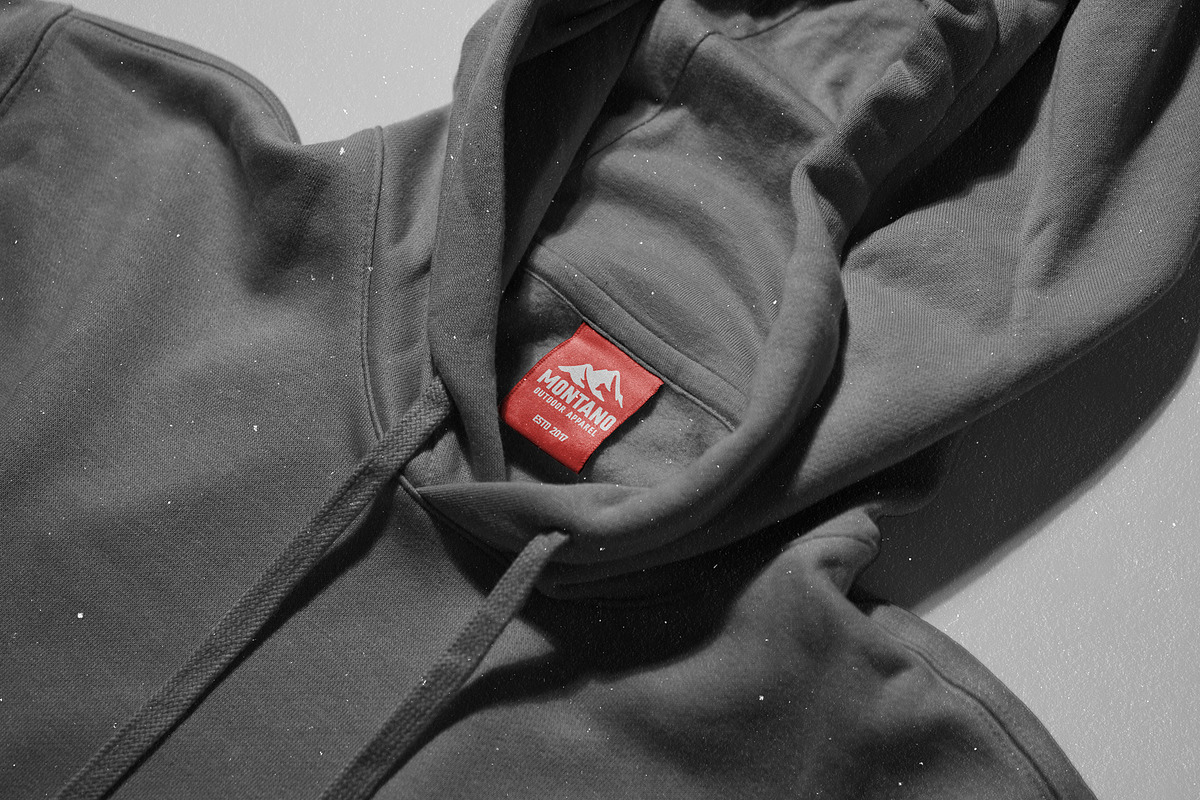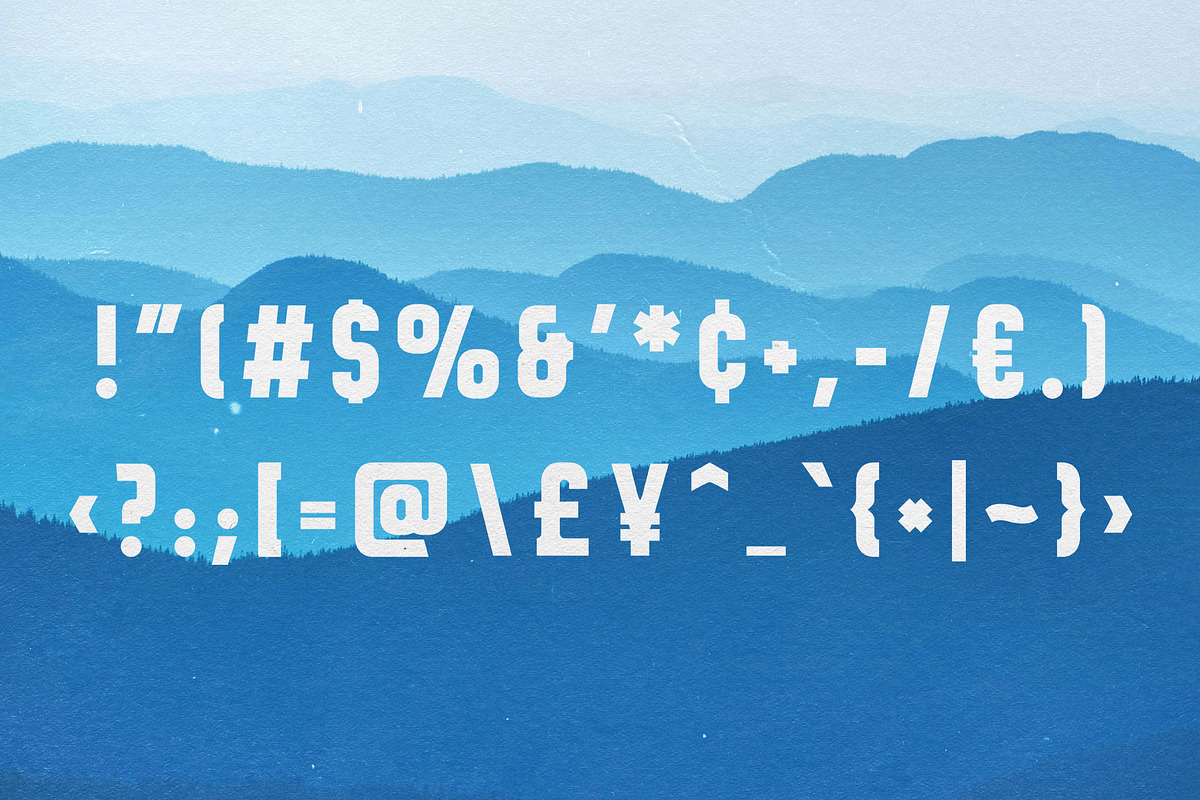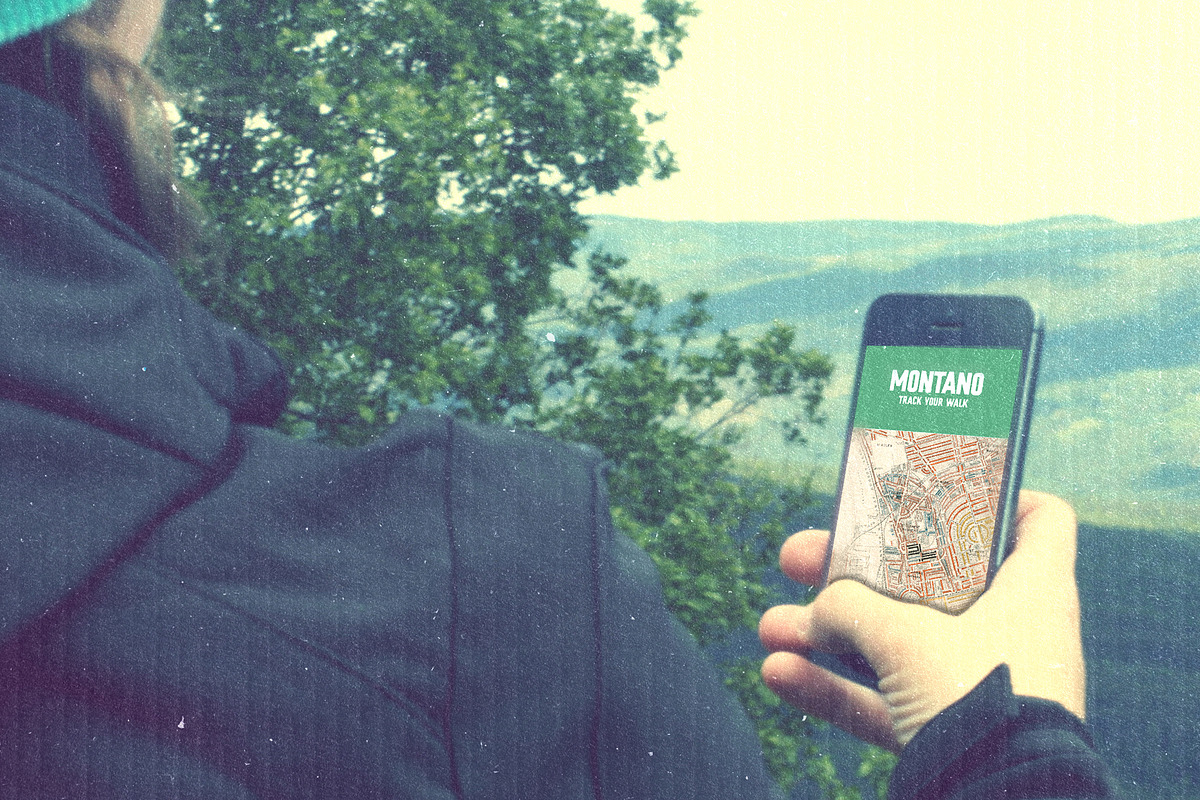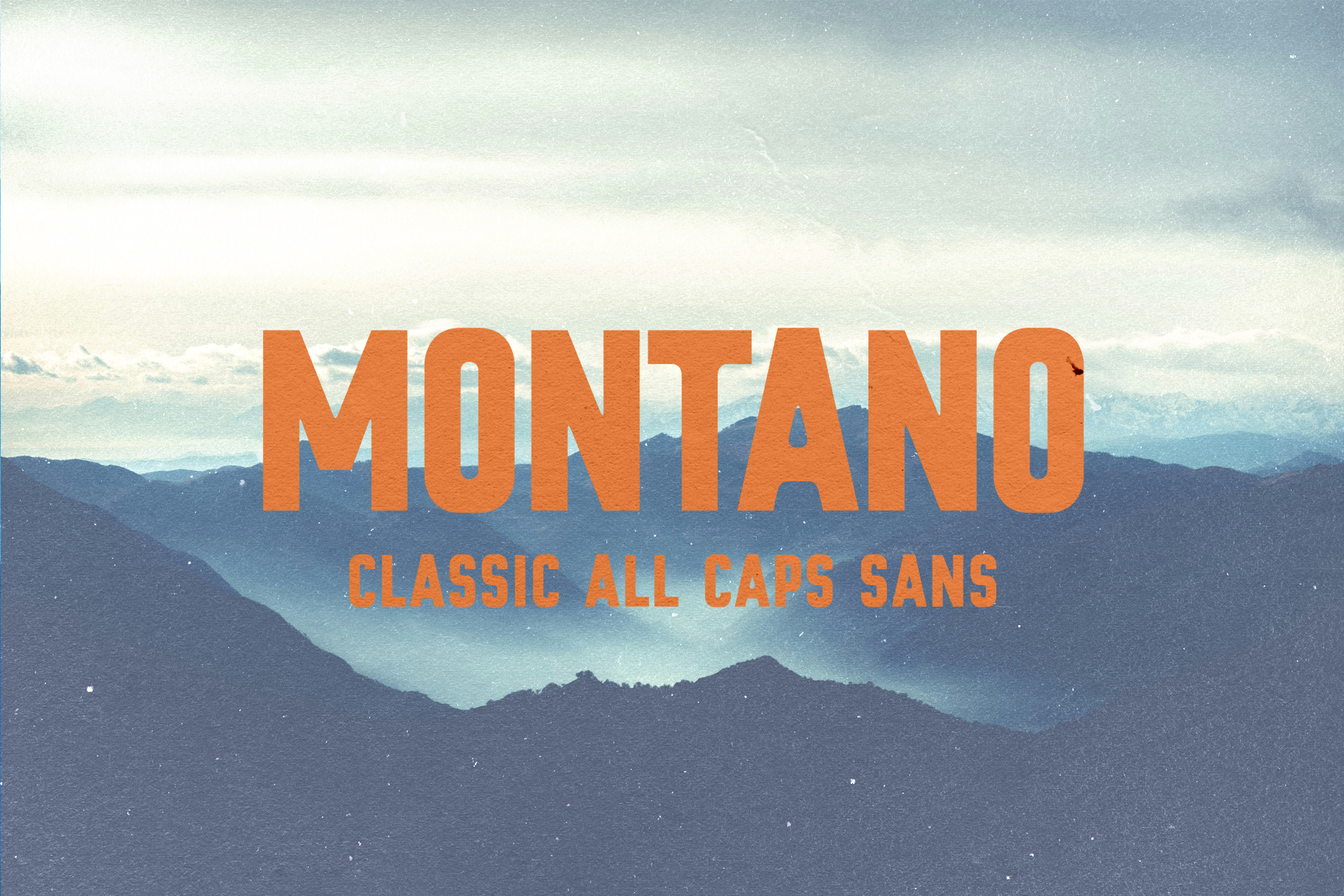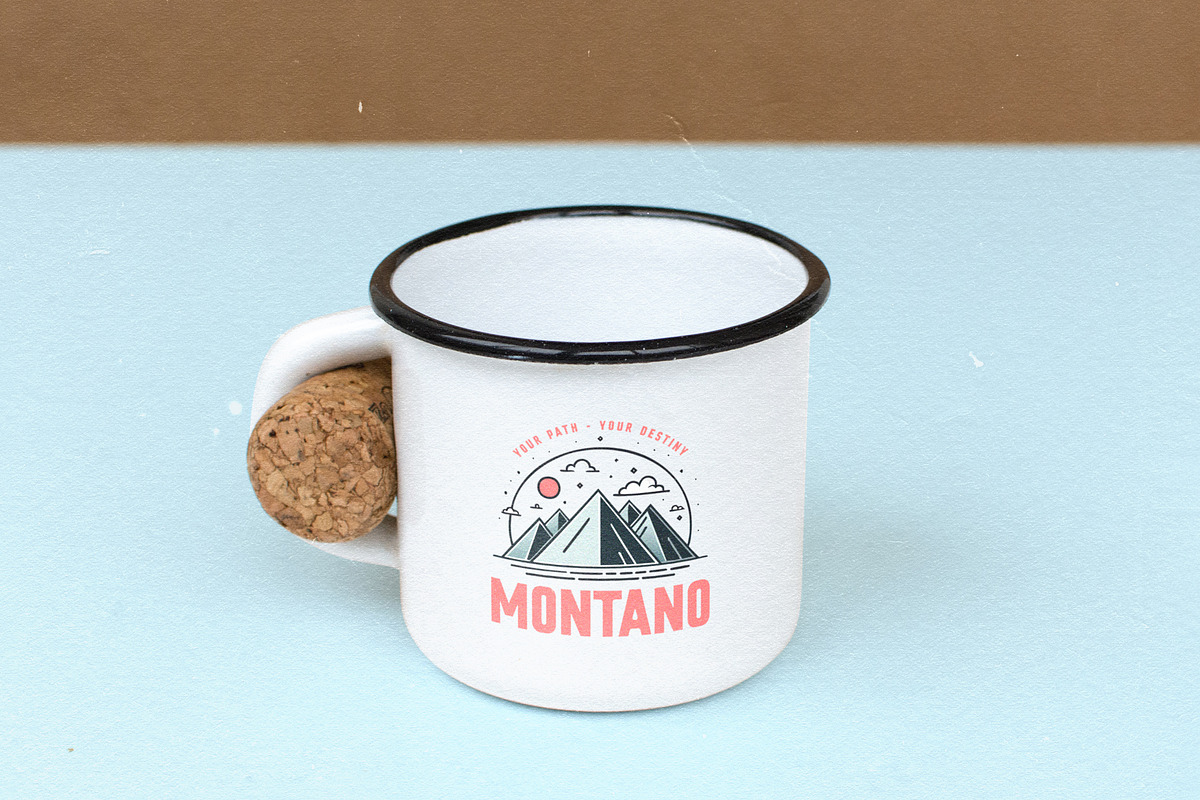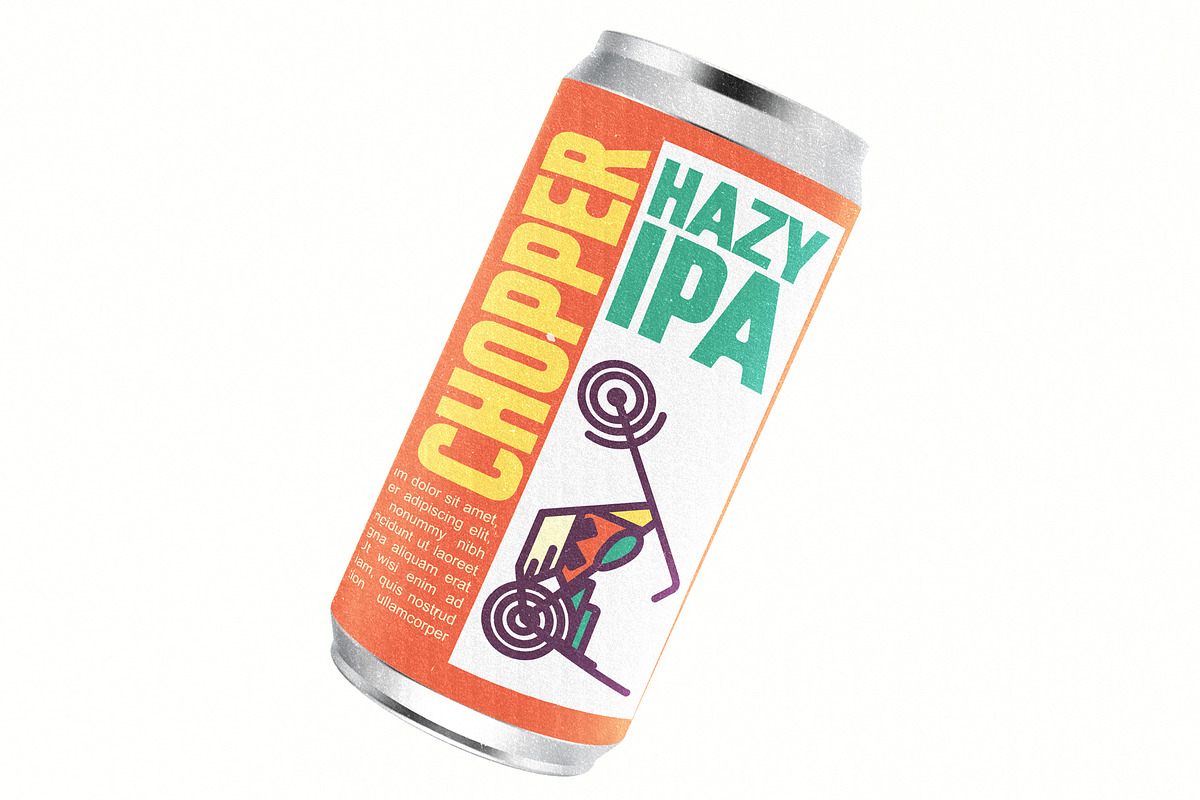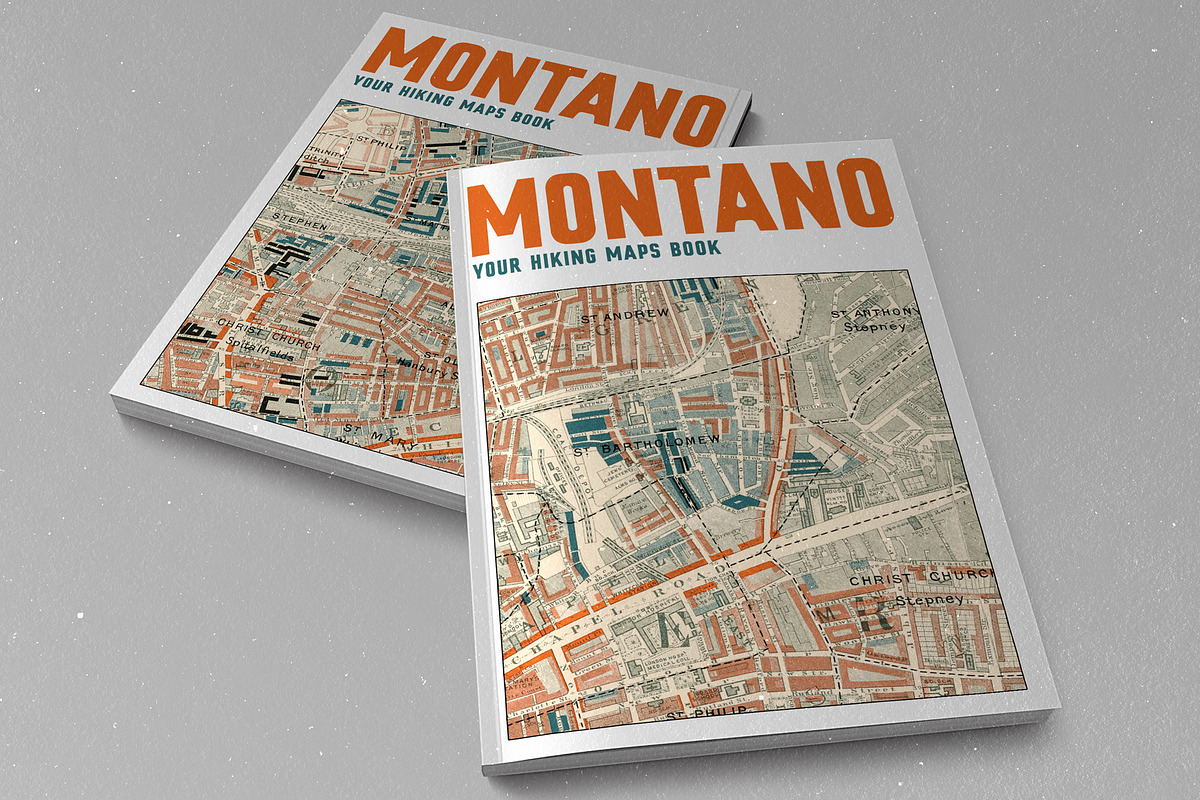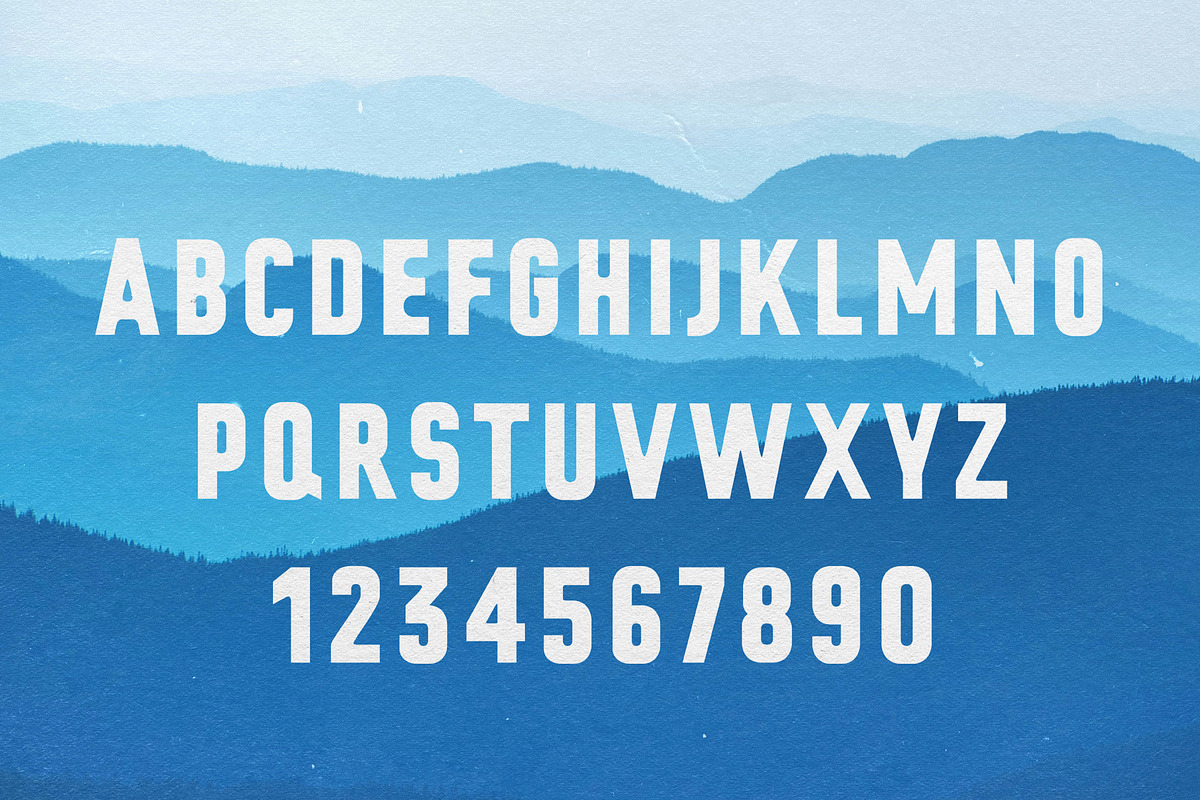
Montano – Bold All Caps Display Font
Montano is a strong and timeless all caps display typeface inspired by mountain landscapes and classic vintage signage. Its solid, geometric forms and slightly worn character give it a bold yet natural presence — perfect for projects that blend adventure, tradition, and simplicity.
Whether you’re designing a logo, a poster, or packaging, Montano brings a rugged outdoor charm and confident typography style to your work.
- All Caps Typeface (A–Z, 0–9, basic punctuation)
- Perfect for logos, posters, packaging, signage, and adventure branding
- Bold, clean, and easy to read!
Style:
Vintage • Bold • Outdoor • Geometric • Rustic